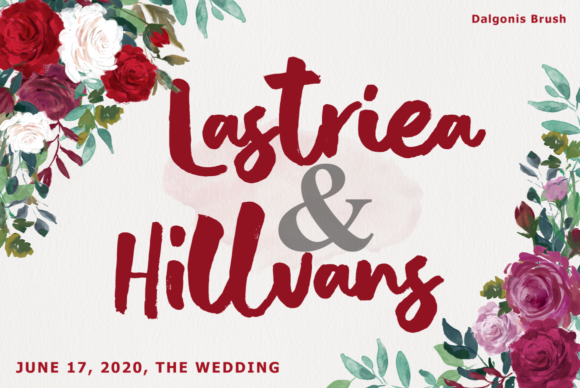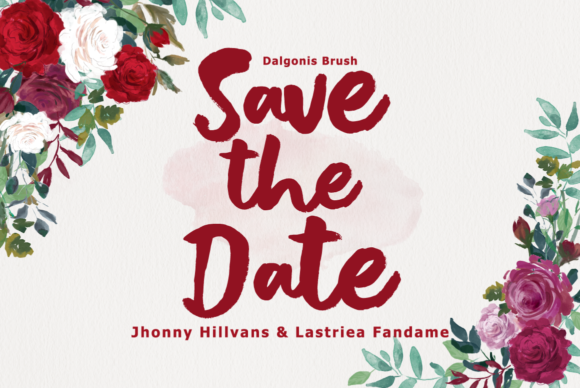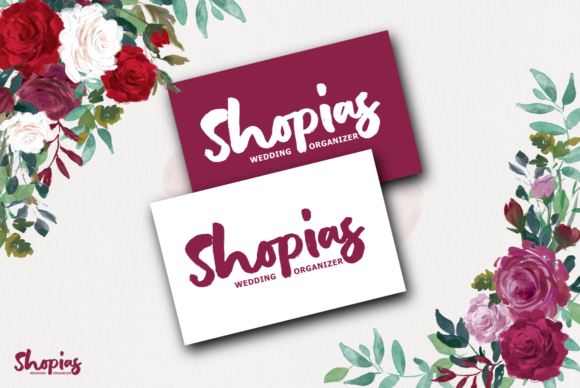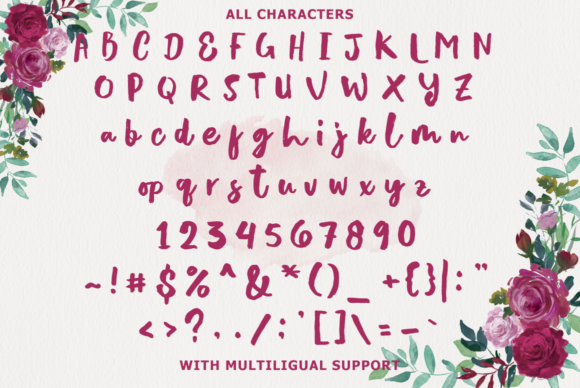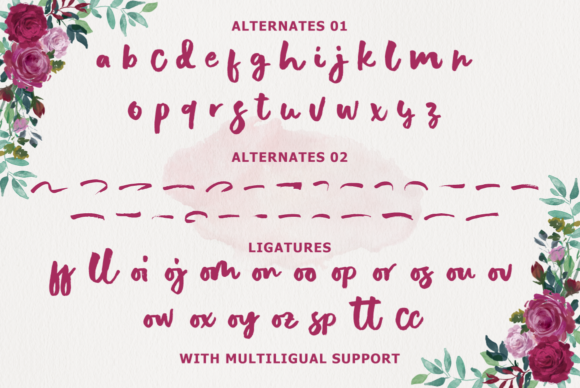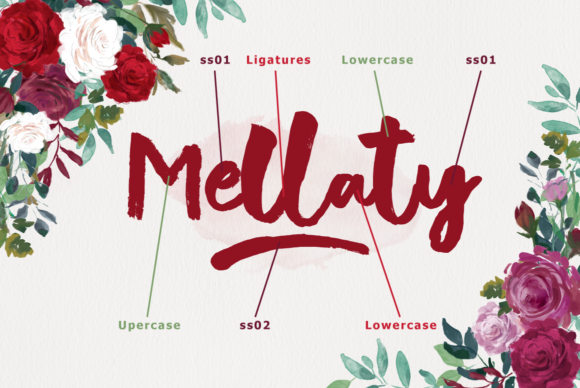
Dalgonis Font: Bringing Your Designs to Life with a Unique Brushed Handwritten Style
In the world of typography, fonts play a crucial role in making or breaking a design. A well-chosen font can elevate your project, making it stand out and leave a lasting impression on your audience. If you’re a designer or crafter looking to add a personal touch to your work, look no further than Dalgonis Font. This incredibly unique and brushed handwritten font is about to become your new go-to, and for good reason.
The Charm of Dalgonis Font
Dalgonis Font boasts a distinctive, hand-crafted feel that sets it apart from more traditional fonts. Its brushed strokes and fluid connections give it an organic, almost whimsical quality that is sure to capture attention. Whether you’re working on a branding project, crafting a one-of-a-kind invitation, or simply looking to add some personality to your digital content, Dalgonis Font brings a level of warmth and approachability that’s hard to achieve with standard fonts.
What Makes Dalgonis Font Stand Out?
- Unique Brushed Handwritten Style: Dalgonis Font’s most notable feature is its beautiful, brushed handwritten style. This gives your text a personal, crafted feel that resonates with audiences.
- Versatility: Despite its unique appearance, Dalgonis Font is remarkably versatile. It can be used in a variety of contexts, from elegant headings and titles to more casual, conversational text.
- Emotional Connection: Fonts have the power to evoke emotions and set the tone for your message. Dalgonis Font, with its warm and inviting style, helps create an instant connection with your audience.
How to Use Dalgonis Font in Your Designs
- Pair it with Complementary Fonts: For maximum impact, consider pairing Dalgonis Font with a more straightforward, sans-serif font. This contrast will make your headings pop and enhance readability.
- Experiment with Sizes and Colors: Dalgonis Font’s versatility means it can be used in a variety of sizes and colors. Don’t be afraid to experiment and find the perfect combination for your design.
- Use it for Headings and Titles: The unique style of Dalgonis Font makes it perfect for headings and titles. Use it to draw attention and add personality to your work.
| Font Name | Dalgonis Font |
| Author | Ijem RockArt |